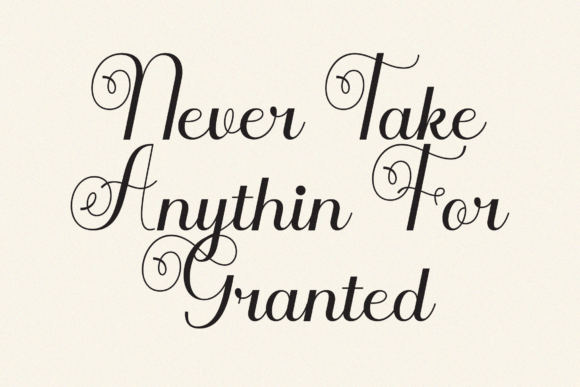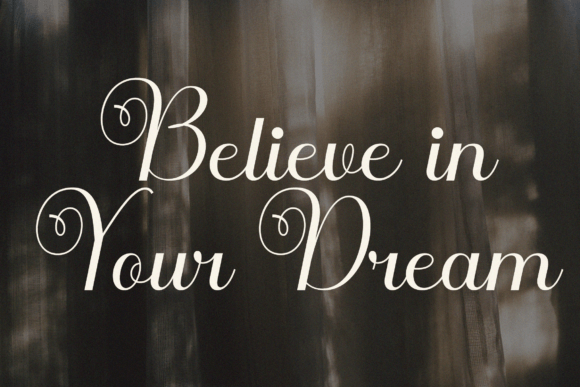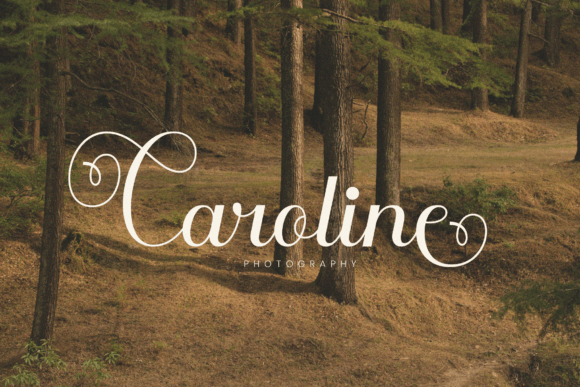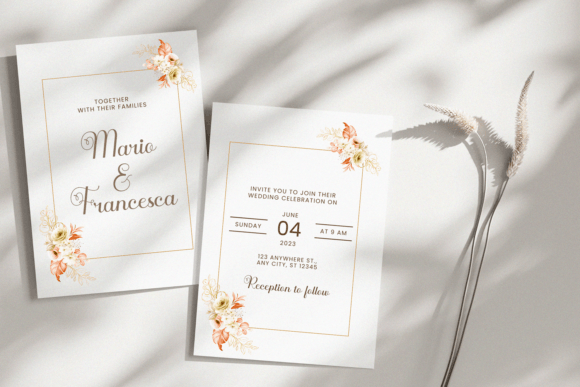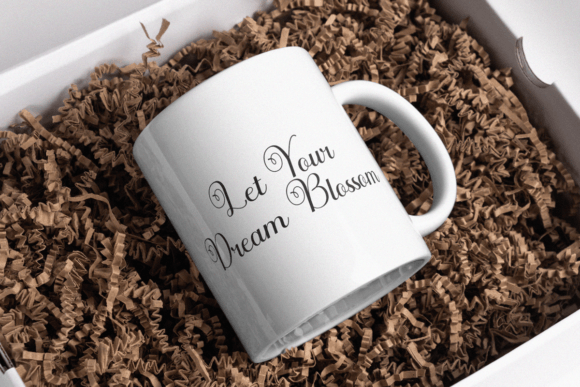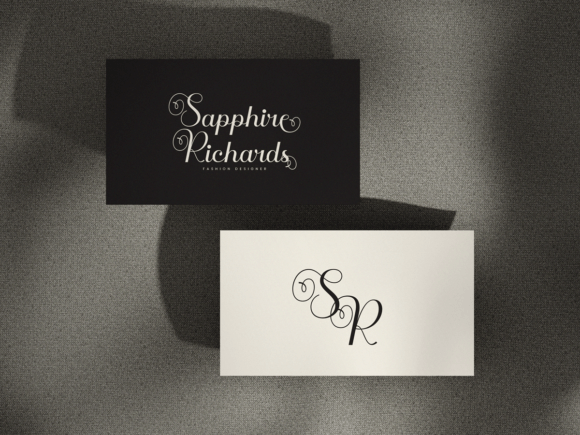
Introduction to Ranzene Font
As you sit at your desk, surrounded by scribbled notes and design ideas, you know that the perfect font can make all the difference. It’s that moment when you stumble upon a font that breathes life into your creative project – a spark of inspiration that sets your imagination ablaze. For designers, finding that elusive font can be a game-changer. That’s where Ranzene Font comes in, a stunning calligraphy font that will elevate your designs to new heights.
What sets Ranzene Font apart is its authentic, realistic aesthetic, which gives your designs a tangibly genuine feel. And with its transparent background, you can easily layer it over any image or texture, creating a truly unique visual effect. Trust Ranzene Font to add an enchanting swirl of sophistication to your designs, and watch your creations come to life in a way you never thought possible.
Key Features of Ranzene Font
- High-quality design resource perfect for creative projects requiring unique typography.
- Unique characteristics include its modern and minimalist aesthetic, making it suitable for a wide range of creative applications.
Honest Review: Ranzene Font
I recently had the chance to work with the Ranzene Font, and I must say it’s been a game-changer for my design projects. The high quality of this font has allowed me to bring a level of sophistication and elegance to my creative projects that I wasn’t able to achieve before.
- ✨ High quality and professional look
- ✨ Versatile and suitable for a wide range of design applications
- ✨ Transparent background makes it easy to work with
- ⚠️ Limited character set, which may be a concern for designers who need a wide range of characters
- ⚠️ May not be suitable for very large or complex design projects
Overall, I’m thoroughly impressed with the Ranzene Font and would highly recommend it to designers looking for a high-quality, versatile font for their creative projects.
Common Use Cases for Ranzene Font
The Ranzene Font is suitable for a wide range of creative projects, including logos, business cards, brochures, and social media graphics. It’s also great for use in presentations, documents, and websites where a high-quality, modern font is needed.